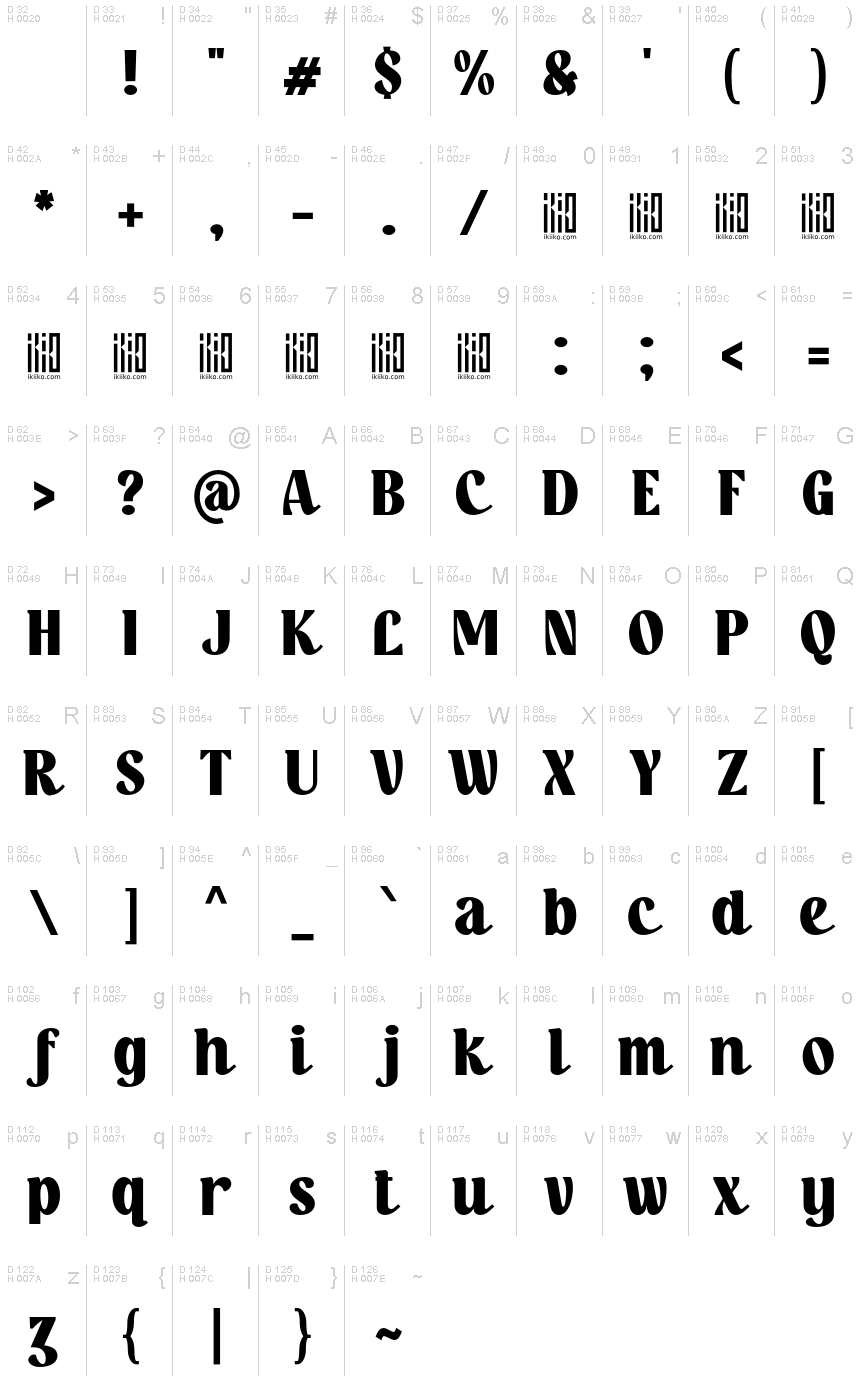
Classicismo, a striking typographic creation from the renowned Ikiiko Type foundry, exudes a captivating retro essence. This bold display font commands attention with its commanding presence and meticulously crafted letterforms. Classicismo's vintage-inspired charm and dynamic personality evoke a sense of timeless elegance, making it a versatile choice for a wide range of design applications.
Classicismo's bold, impactful strokes and distinctive character shapes lend themselves exceptionally well to headline, branding, and creative project applications. Its retro-infused aesthetic seamlessly complements vintage-inspired designs, while its striking presence can also elevate contemporary compositions with a touch of classic allure. This font's versatility and visual impact make it a compelling choice for designers seeking to infuse their projects with a captivating, retro-modern aesthetic.
Classicismo